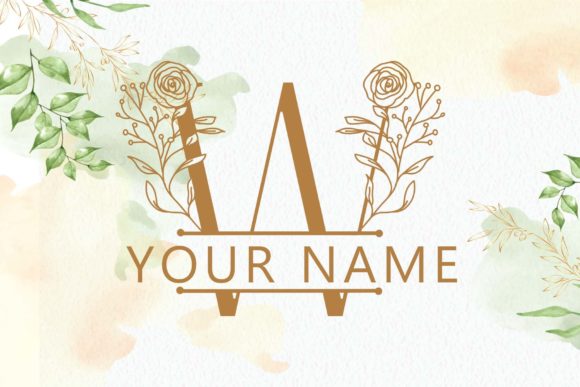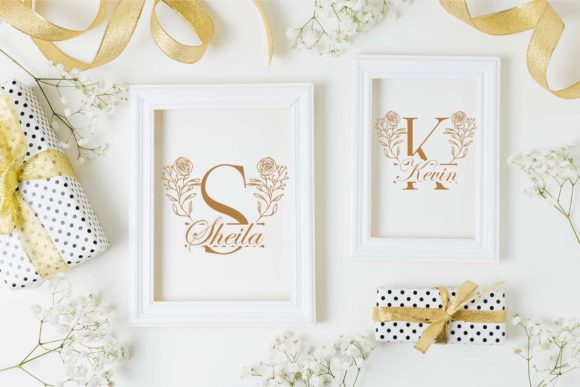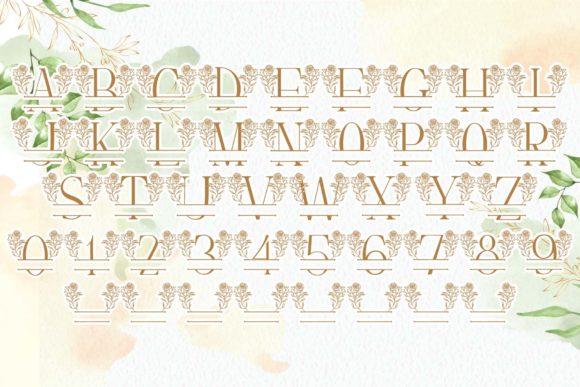
Introduction to Rose Blossom Line Monogram Font Font
Fonts play a crucial role in design, and the Rose Blossom Line Monogram Font font is a typeface that brings both character and versatility to any project. Whether you’re working on a branding project, a website, or a print design, the Rose Blossom Line Monogram Font font offers a unique style that can elevate your work.
Rose Blossom Line Monogram is a dainty and unique decorative font.
Add this romantic and lovely looking font to each of your love letters, wedding invitations or favorite design ideas, and you will be astounded by the outcome .
Key Features of Rose Blossom Line Monogram Font Font
Why Choose Rose Blossom Line Monogram Font Font?
The Rose Blossom Line Monogram Font font is more than just a typeface – it’s a design tool that helps you communicate your message with style and clarity. Its unique character set and versatile design make it suitable for a wide range of applications, from elegant invitations to bold headlines.
With its carefully crafted letterforms and balanced proportions, the Rose Blossom Line Monogram Font font ensures readability and visual appeal across all mediums.
What makes Rose Blossom Line Monogram Font font special?
The Rose Blossom Line Monogram Font font stands out with its unique design, exceptional readability, and versatility across various design applications.